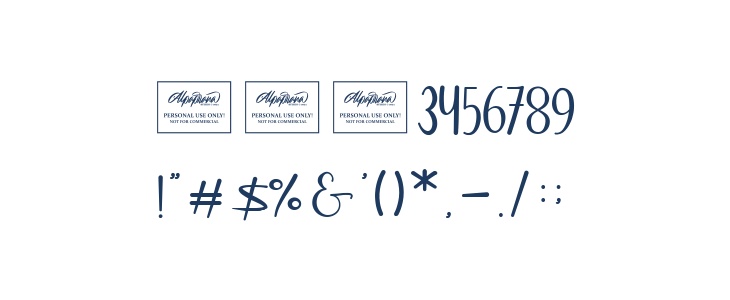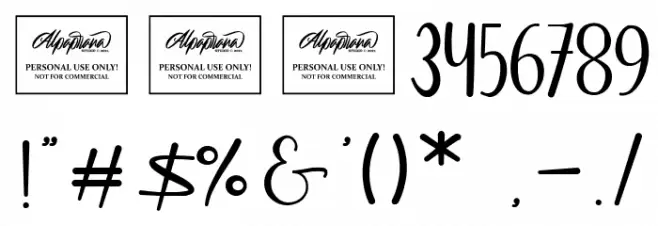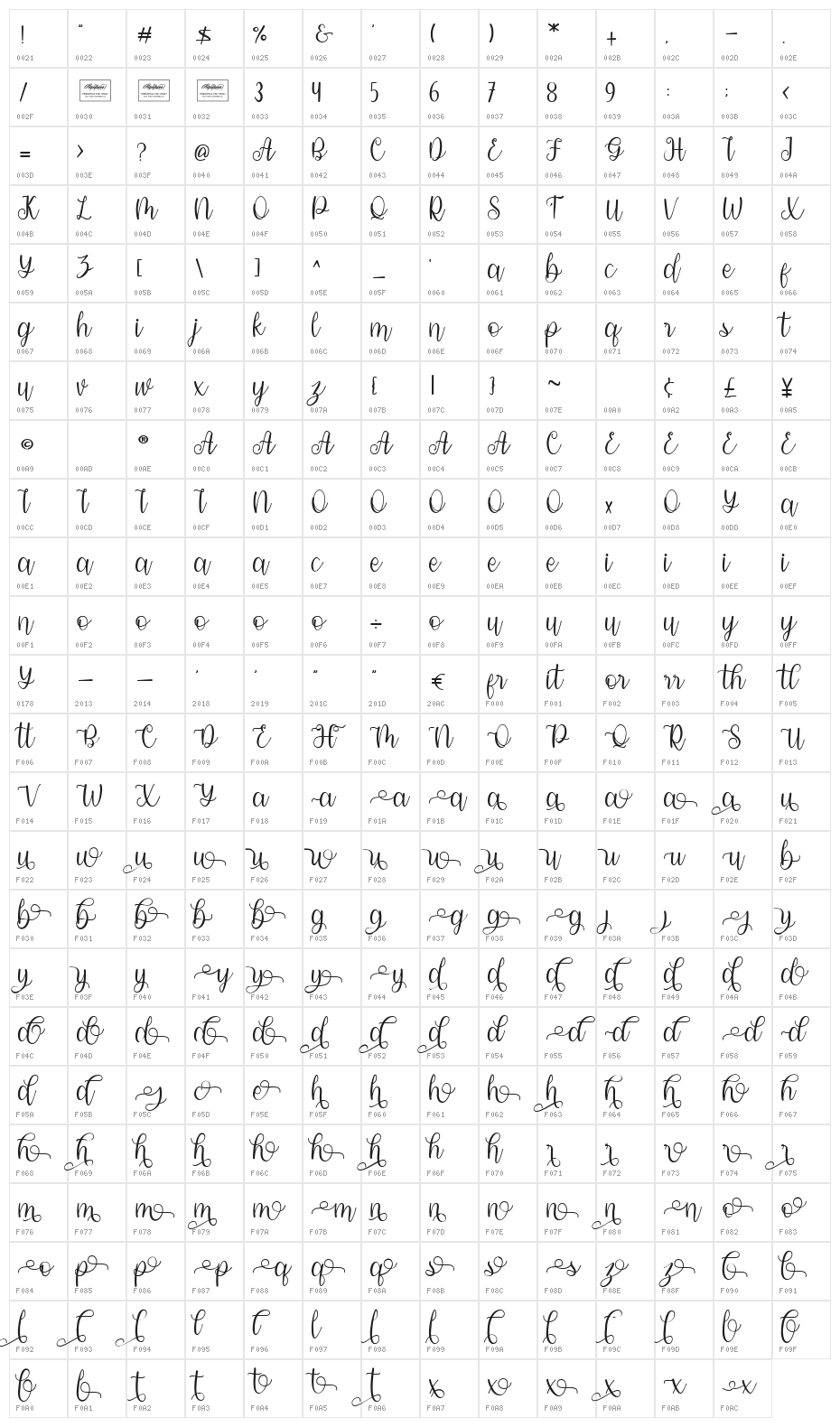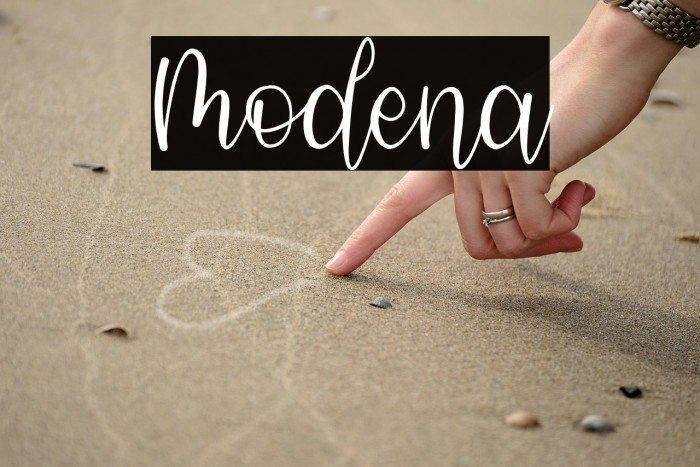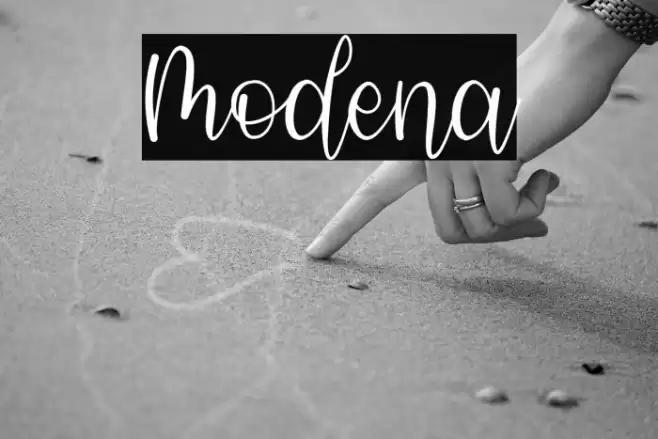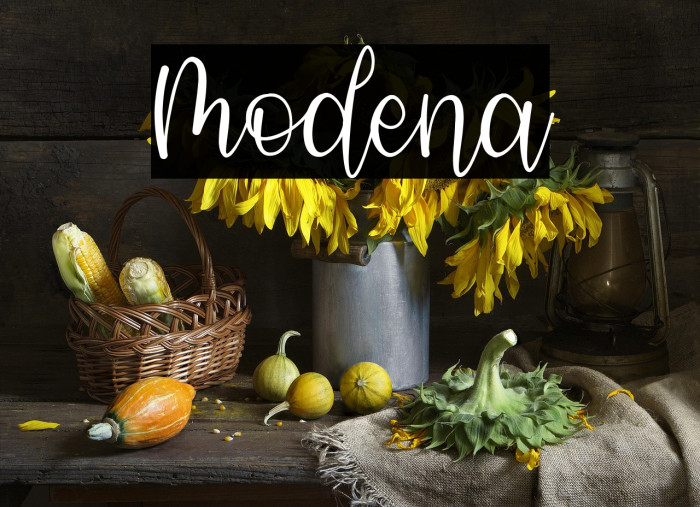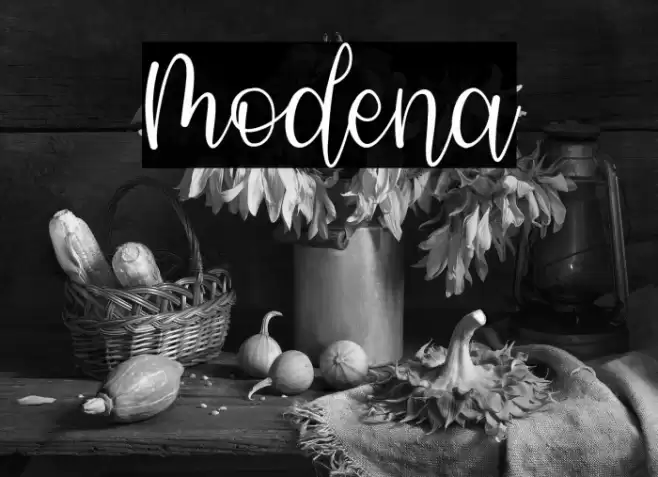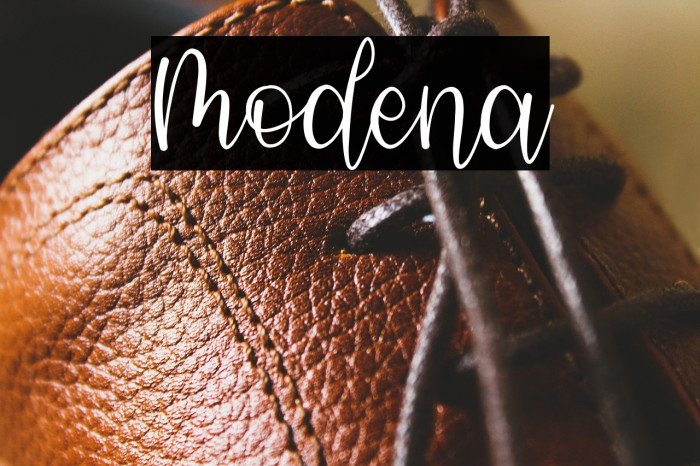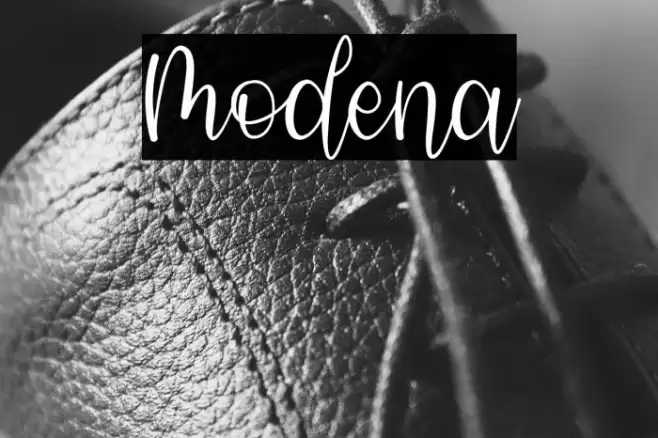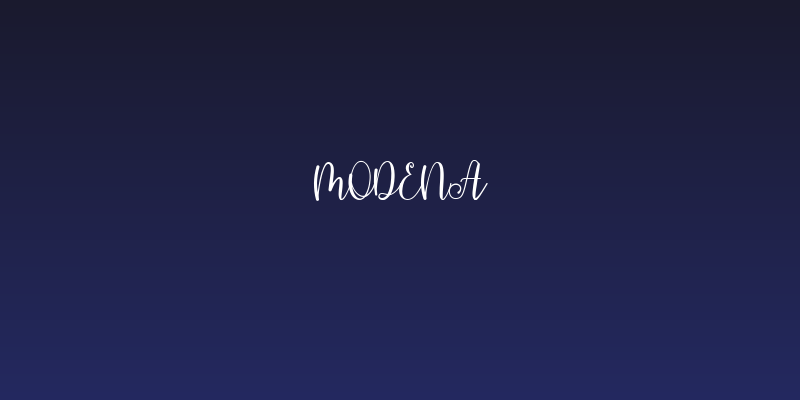
Modena Font
Modena Description
This font features a flowing, cursive style with elegant loops and swashes, giving it a sophisticated and artistic appearance. The uppercase letters are characterized by their ornate and decorative flourishes, while the lowercase letters maintain a consistent, smooth flow that enhances readability. The numerals and special characters are designed with the same attention to detail, ensuring a cohesive look across all elements. This font's overall aesthetic is both modern and timeless, making it suitable for a variety of design applications.
| Overall Style | Elegant and Artistic |
| Use Case | Logos, Invitations, Decorative Text |
| Proposed Projects | Ideal for wedding invitations, greeting cards, branding, and logos. |